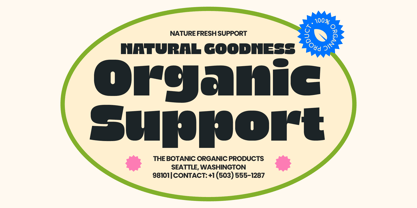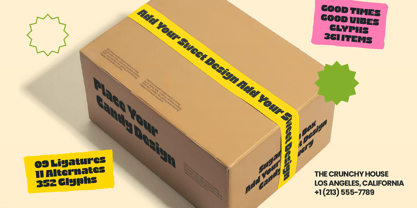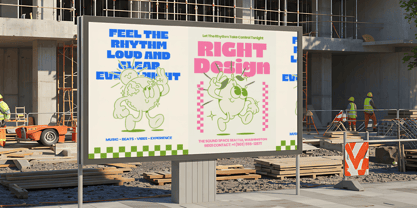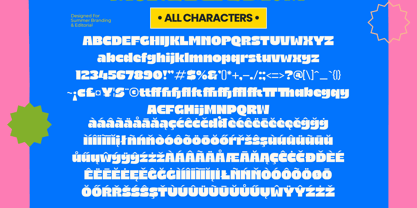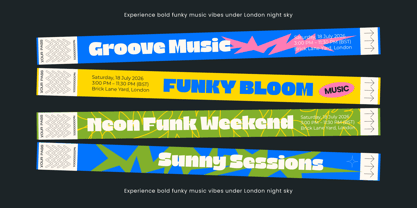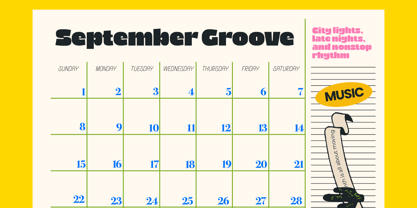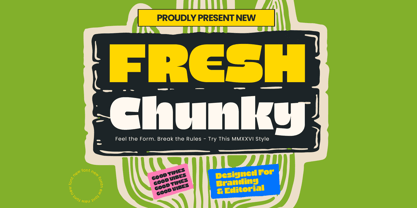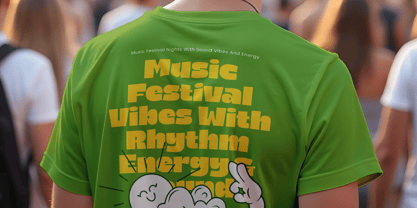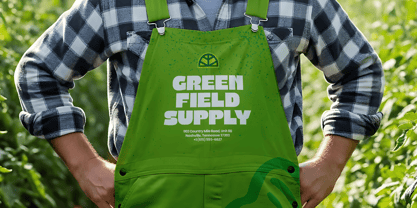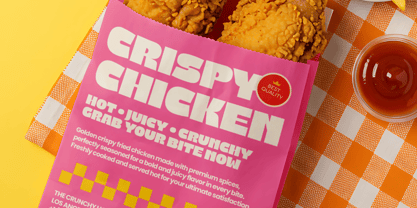
Fresh Chunky
Die Schriftfamilie Fresh Chunky wurde von Heru Utama Putra entworfen und von Timelesstype Studio veröffentlicht. Fresh Chunky enthält 2 Stile und Familienpaketoptionen. Mehr über diese Familie
Fresh Chunky – Retro Groovy Sans Display Fresh Chunky is a bold retro groovy sans display font built to make a loud, confident statement. Inspired by funky vintage lettering and playful 70s aesthetics, this typeface delivers thick curves, chunky shapes, and a strong visual punch that instantly grabs attention. With 12 ligatures, 19 alternates, and multilingual support, Fresh Chunky gives you enough flexibility to create dynamic, expressive typography while keeping that solid retro personality intact. Its heavy letterforms and smooth rounded edges make it perfect for eye-catching headlines and bold branding. If you want designs that feel fun, energetic, and unapologetically retro, Fresh Chunky is the move.